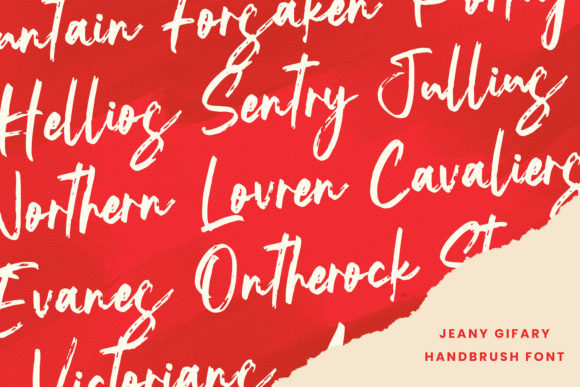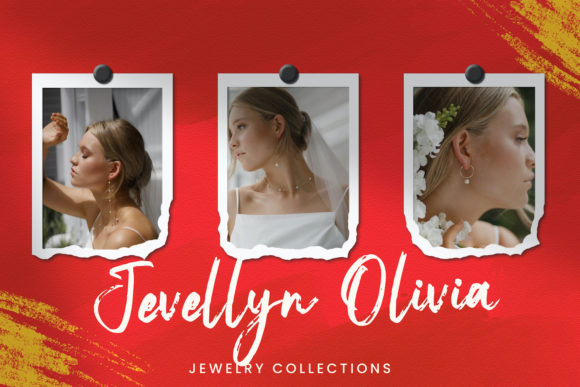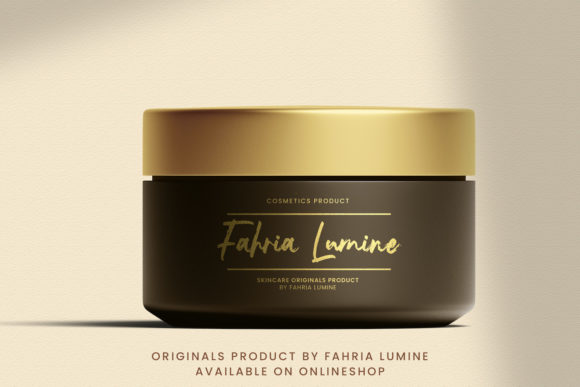
Introduction to Jeany Gifary Font
As designers, we’ve all been there – staring at a blank canvas, waiting for inspiration to strike. It’s moments like these that we wish we had the perfect design resource to elevate our creative project. For those who’ve been searching for that special something, we’ve got exciting news – the Jeany Gifary Font is here to revolutionize your designs.
This cool, handwritten font boasts a rough textured feel that’s sure to add a unique touch to any project. With its versatility, the Jeany Gifary Font has the potential to elevate even the most mundane creations into stunning works of art. Whether you’re working on a high-quality logo, a graphic for social media, or a digital design with a transparent background, this font is sure to be an incredible asset to your fonts’ library.
Key Features of Jeany Gifary Font
- Unique, Hand-Drawn Design: Jeany Gifary Font features a distinctive, hand-drawn style perfect for creative projects.
- Perfect for Creative Projects: With its unique design and high-quality font files, Jeany Gifary Font is an excellent choice for designers working on creative projects.
- Comprehensive Character Set: Jeany Gifary Font includes a wide range of characters, including Latin, Cyrillic, and Greek alphabets, making it a versatile design resource.
Honest Review: Jeany Gifary Font
As a designer, I’m always on the lookout for high-quality design resources to elevate my creative projects. Recently, I had the chance to try out the Jeany Gifary Font, and I’m excited to share my honest review.
- High-quality design: The Jeany Gifary Font is well-designed and has a unique, modern feel that can add a touch of sophistication to any project.
- Limited character set: Unfortunately, the Jeany Gifary Font has a relatively small character set, which may limit its use in certain projects.
- Not ideal for body text: While the font is great for headlines and titles, it may not be the best choice for body text due to its unique design.
Overall, I’m impressed with the Jeany Gifary Font’s unique design and high-quality feel. While it has some limitations, it’s still a great addition to any designer’s toolkit, especially for creative projects where a modern, stylish font is needed.
The Jeany Gifary Font is ideal for a variety of creative projects, including logos, business cards, and social media graphics. It’s also suitable for designing websites, landing pages, and marketing materials. The font’s transparent background makes it easy to use in combination with other design elements and graphics.